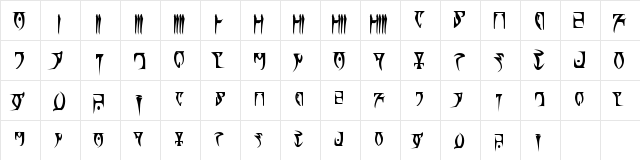
Daedra Bold
Bold · Neale Davidson Neale Davidson ·
Design Context for Daedra Typeface
Daedra is a composed and adaptable typeface that performs quietly and consistently across a wide range of design contexts. Its bold stroke weight gives it real presence on the page.
Pro Tip: Use Daedra in both headline and body roles to test its range before committing to a single application.